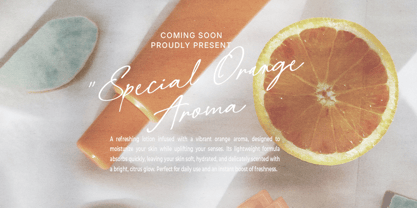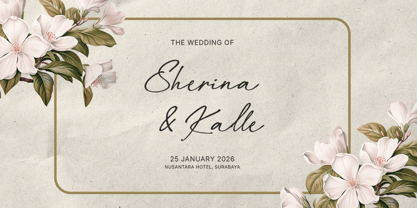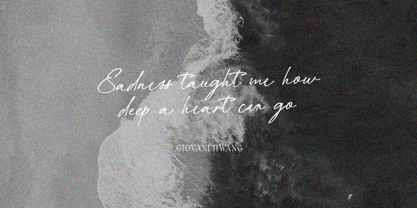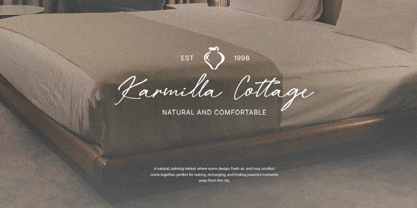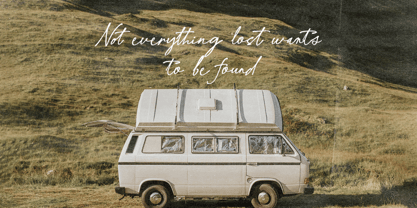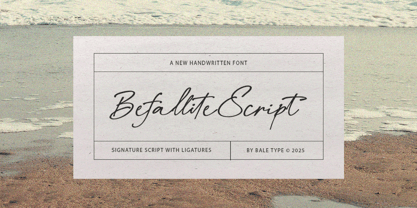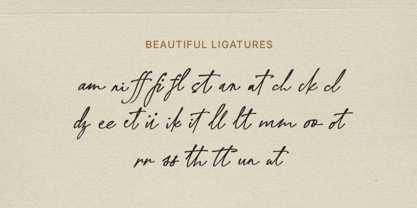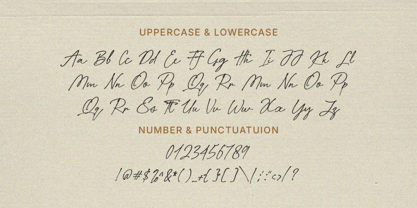
Befallite
by Bale Type
The Befallite Font Family was designed by Dzikrul Aulia and published by Bale Type. Befallite contains 1 styles.
Befallite is a handwritten script font featuring stylish ligatures that add a natural and elegant flow to your designs. This font is perfect for a wide range of creative uses, including logos, branding projects, quotes, social media graphics, and wedding invitations. Befallite also works beautifully as a pairing font with both sans-serif and other script typefaces, giving you more flexibility in your layouts. With its carefully crafted ligatures, this font brings a warm, authentic hand-touch vibe that makes any project feel more personal and expressive. Befallite also supports multiple languages, making it suitable for global and diverse design needs.
Designers: Dzikrul Aulia
Publisher: Bale Type
Foundry: Bale Type